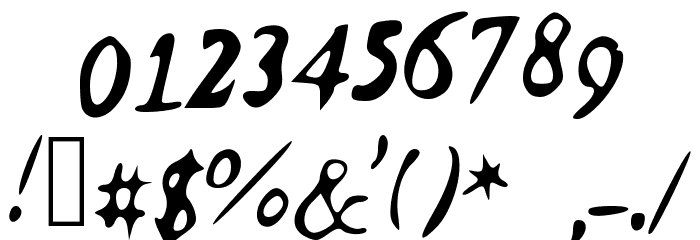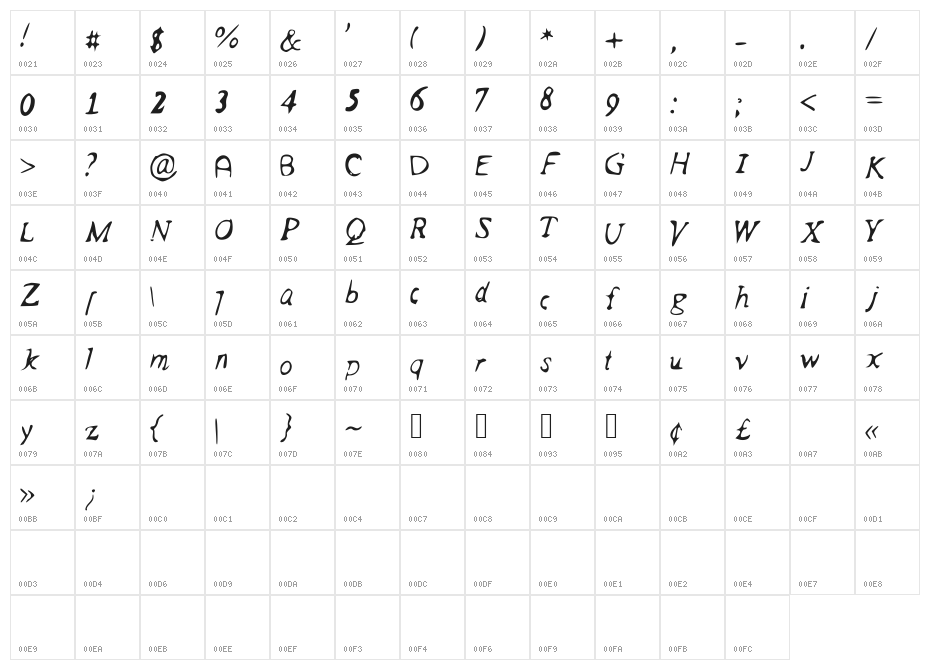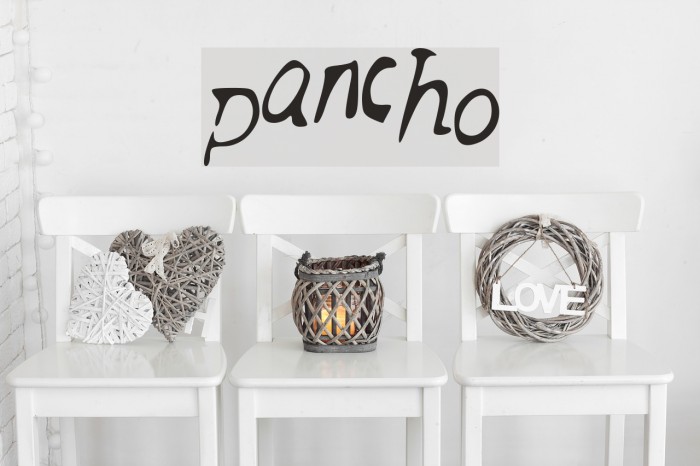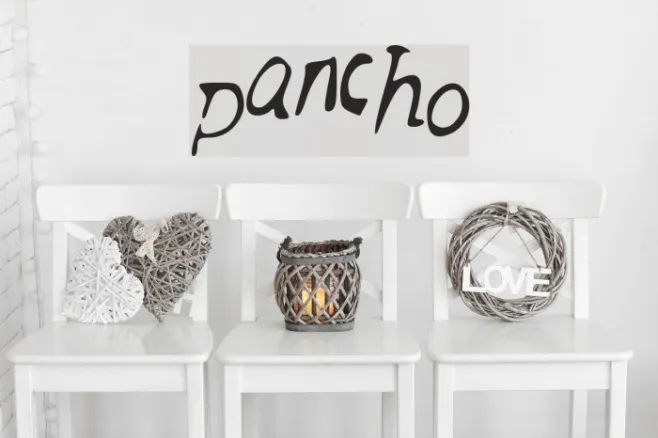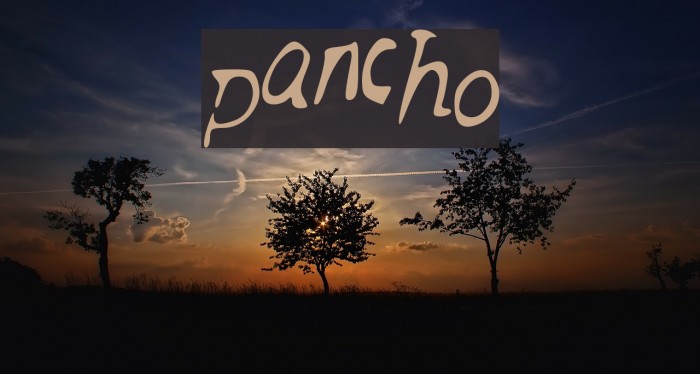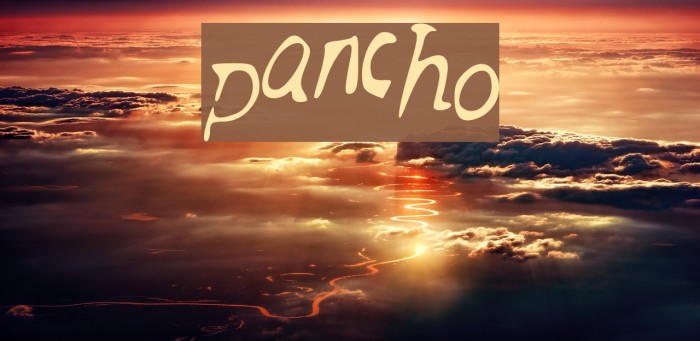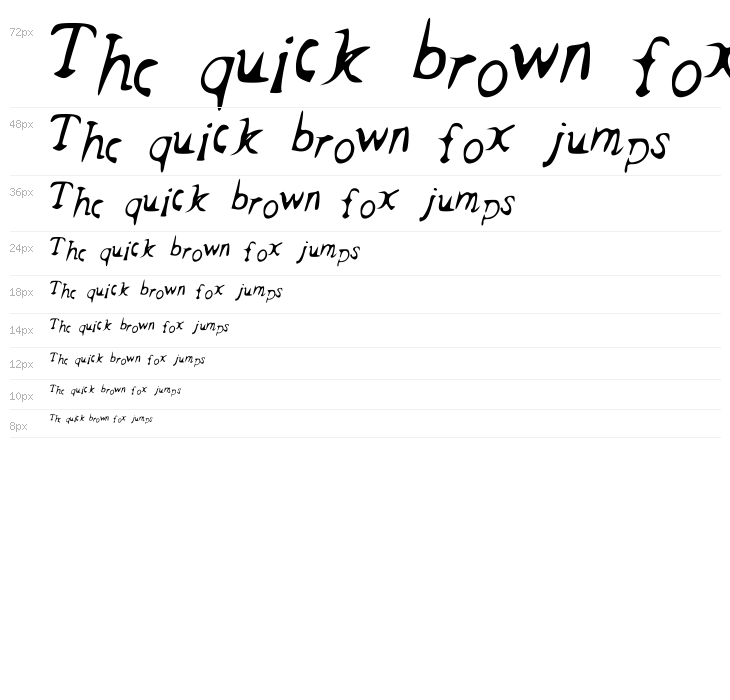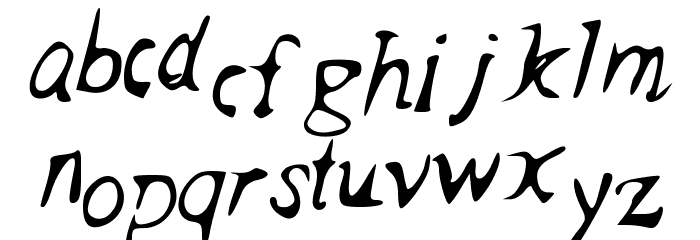
pancho Font
pancho Description
This font features a dynamic and playful script style, characterized by its fluid and irregular strokes that give it a hand-drawn appearance. The uppercase letters are bold and slightly tilted, adding a sense of movement and energy. The lowercase letters maintain a consistent flow, with some characters exhibiting unique loops and curves that enhance its artistic flair. Numbers and special characters are designed to match the whimsical nature of the alphabet, making this font suitable for creative and informal applications. Its overall design is both expressive and approachable, making it ideal for projects that require a personal touch.